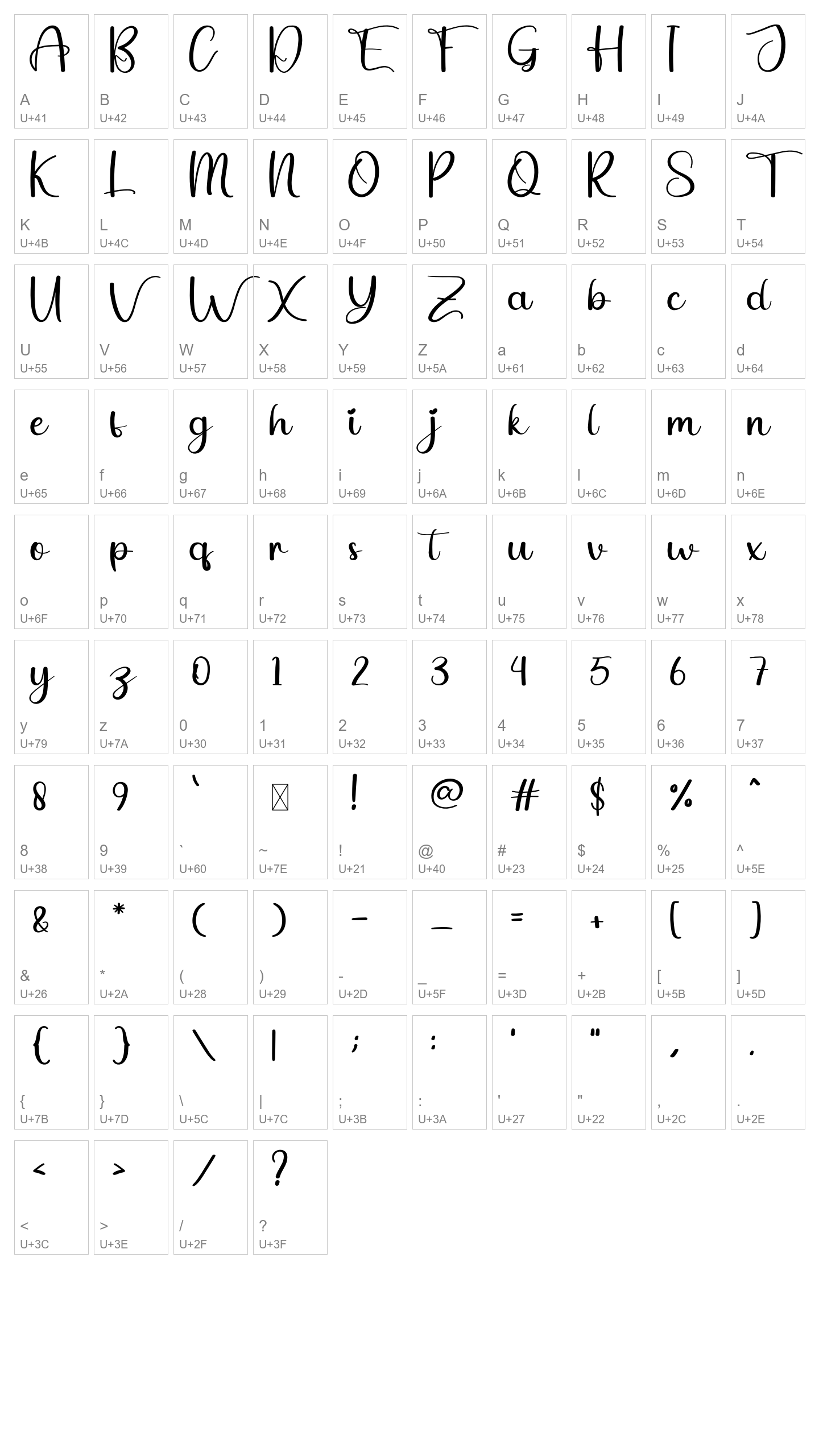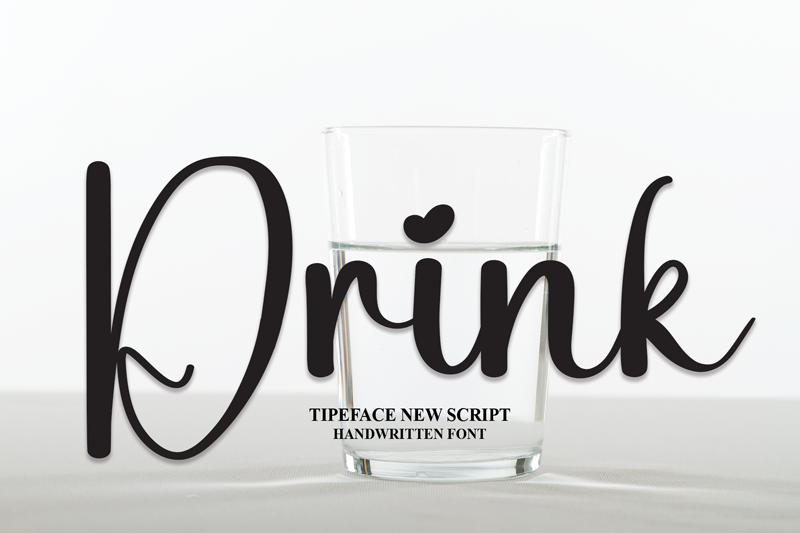
Drink
this is a sweet and friendly handwritten display font. Cute and fun, this font is ideal for writing wedding invitations, cards, or any other design that might need a playful touch!